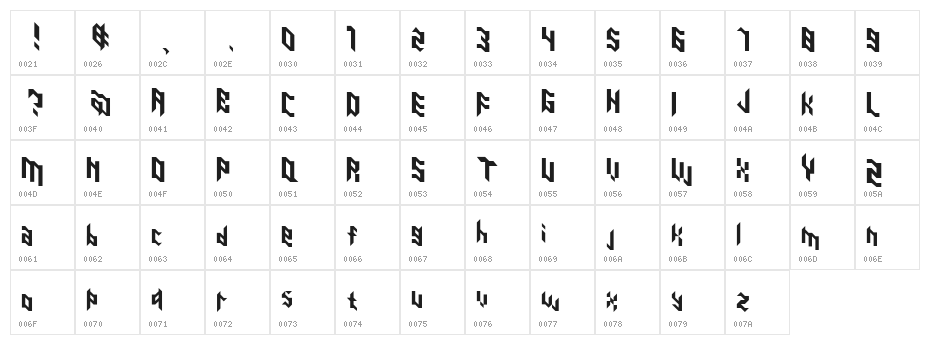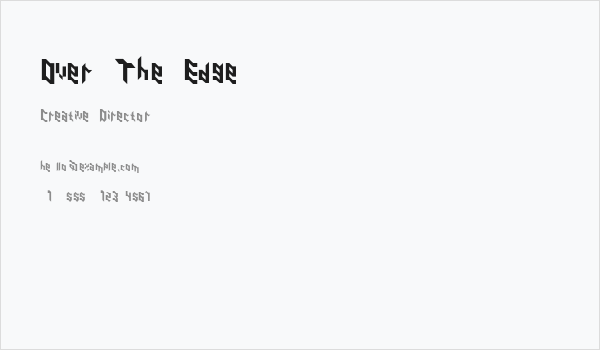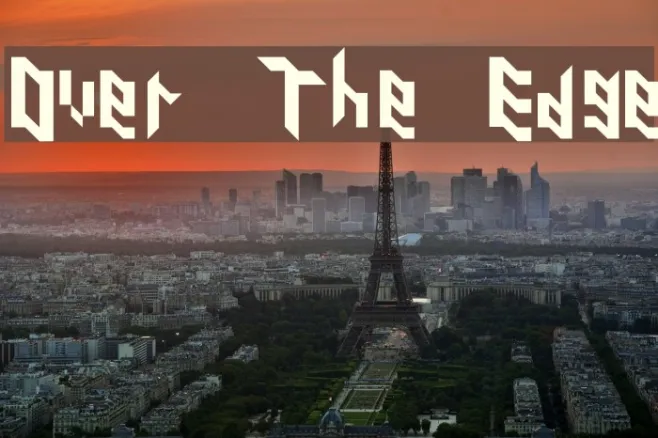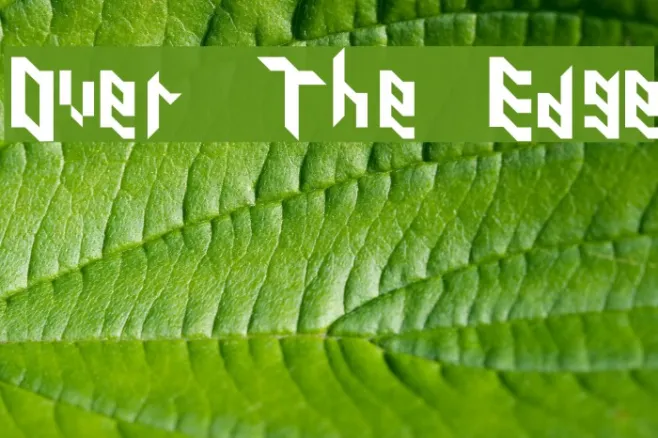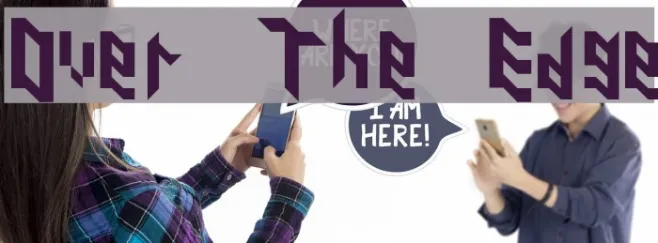
Over The Edge Font
Over The Edge Description
This font features a bold, angular design with sharp, geometric edges, giving it a distinctly modern and edgy appearance. The characters are constructed with a series of straight lines and acute angles, creating a sense of movement and dynamism. The uppercase and lowercase letters maintain a consistent style, with the uppercase being slightly more pronounced. Numbers and special characters follow the same design principles, ensuring uniformity across all glyphs. The font's unique style makes it stand out, ideal for projects that require a strong visual impact.